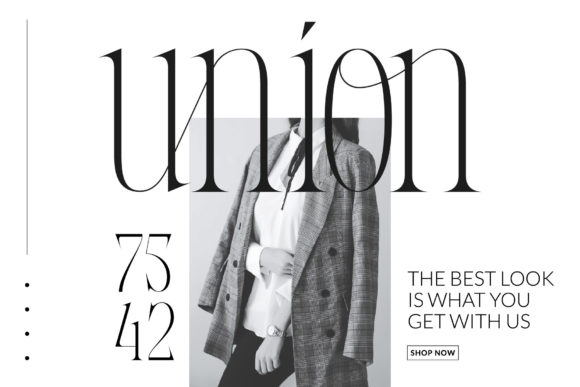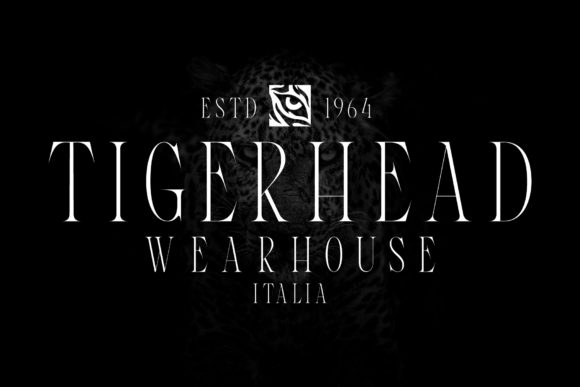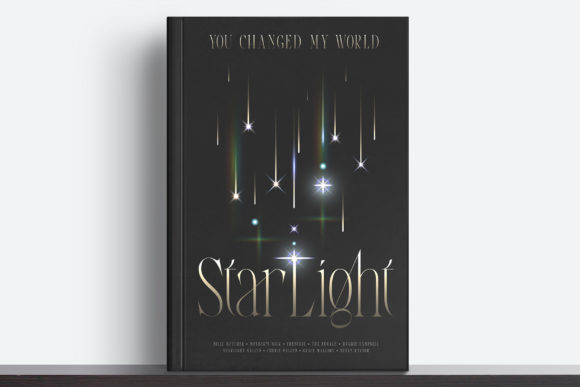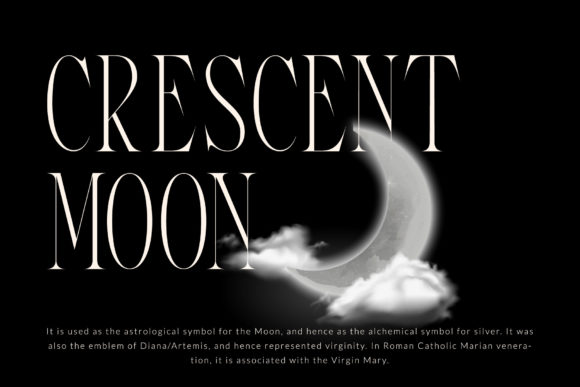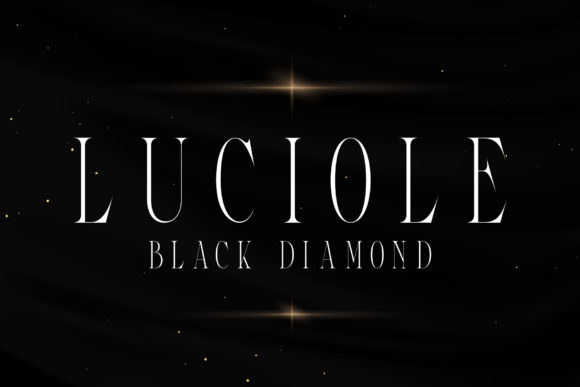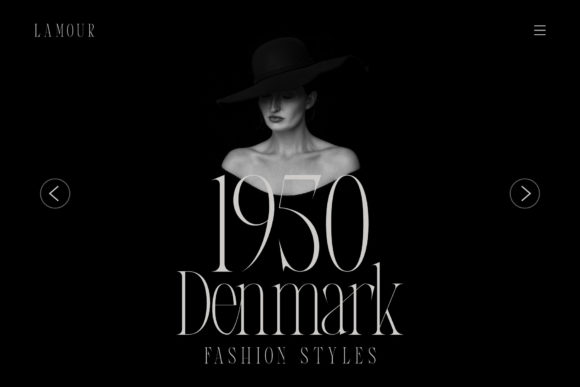
Introduction to Lamour Font Font
Fonts play a crucial role in design, and the Lamour Font font is a typeface that brings both character and versatility to any project. Whether you’re working on a branding project, a website, or a print design, the Lamour Font font offers a unique style that can elevate your work.
Lamour is a stylish and tall serif font.
It has an elegant and modern look that can be used for logos, branding, invitations, stationery, wedding designs, social media posts, and much more This font is PUA encoded which means you can access all glyphs and swashes with ease.
Key Features of Lamour Font Font
Why Choose Lamour Font Font?
The Lamour Font font is more than just a typeface – it’s a design tool that helps you communicate your message with style and clarity. Its unique character set and versatile design make it suitable for a wide range of applications, from elegant invitations to bold headlines.
With its carefully crafted letterforms and balanced proportions, the Lamour Font font ensures readability and visual appeal across all mediums.
What makes Lamour Font font special?
The Lamour Font font stands out with its unique design, exceptional readability, and versatility across various design applications.